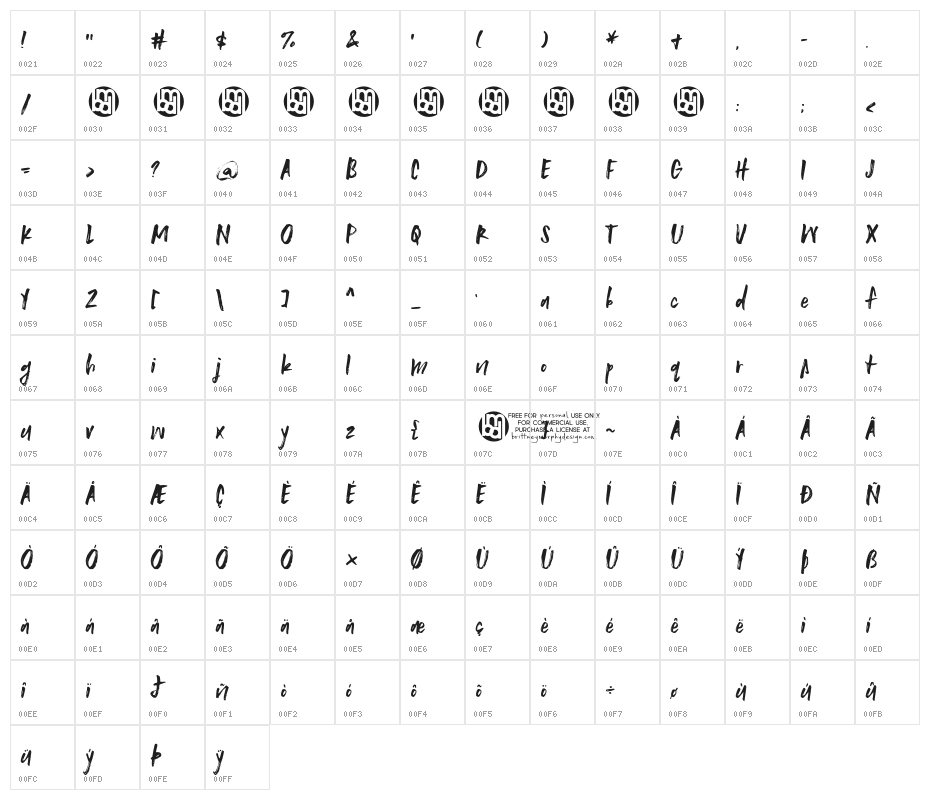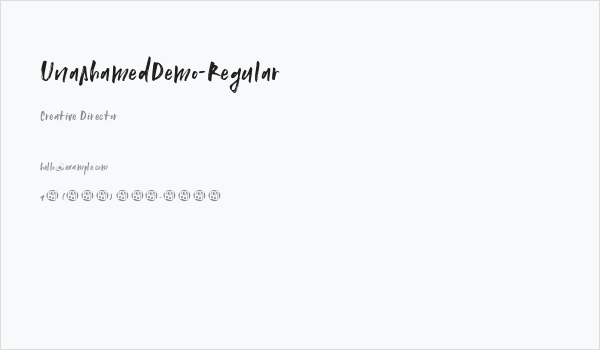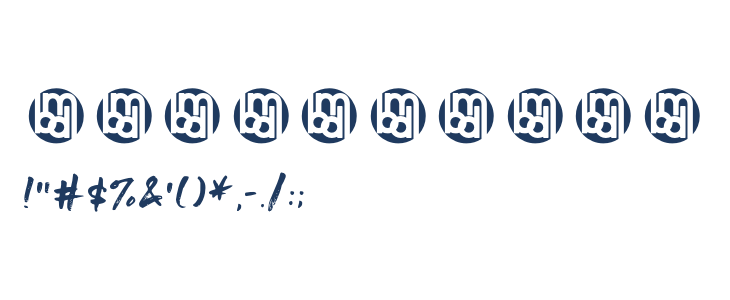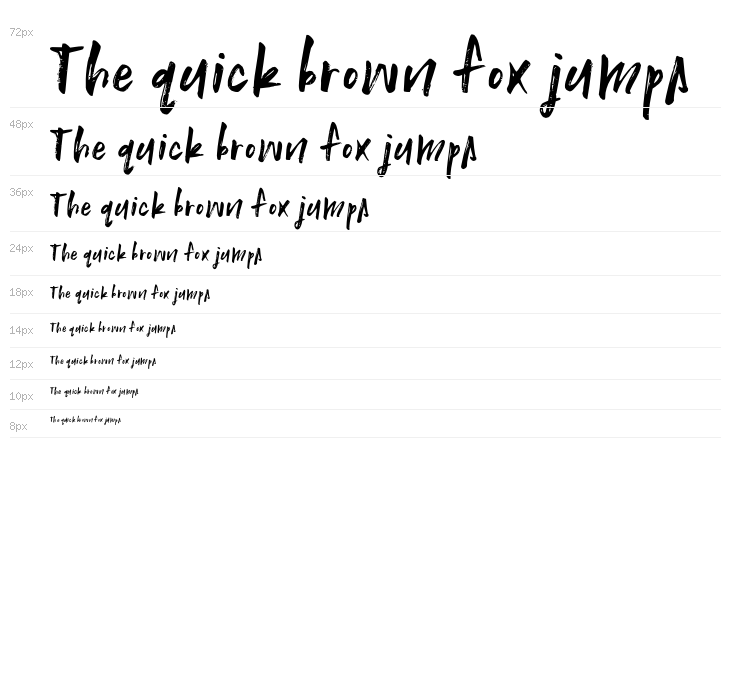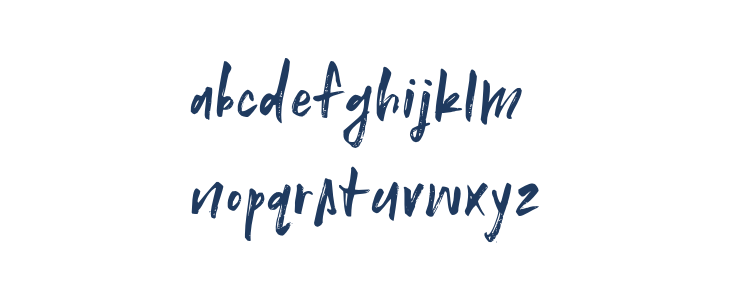
UnashamedDemo-Regular Font
UnashamedDemo-Regular Description
This font features a bold, brush-like style with a hand-painted appearance, giving it a raw and energetic feel. The uppercase and lowercase letters are characterized by uneven strokes and varying thickness, creating a dynamic and artistic look. The font includes a full set of uppercase and lowercase letters, numbers, and a selection of special characters. Its rough texture and irregular edges contribute to its informal and expressive nature, making it ideal for projects that require a personal touch or a sense of spontaneity.
| Overall Style | Modern, Artistic |
| Proposed Projects | Ideal for posters, album covers, branding, and any creative projects that benefit from a bold, artistic touch. |